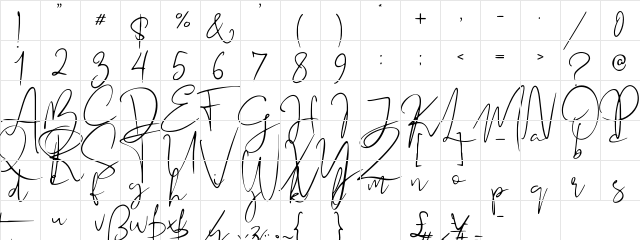
Audhistine Regular
| Designer | Lettersiro 2018 |
Design Context for Audhistine Typeface
Audhistine is a composed and adaptable typeface that performs quietly and consistently across a wide range of design contexts.